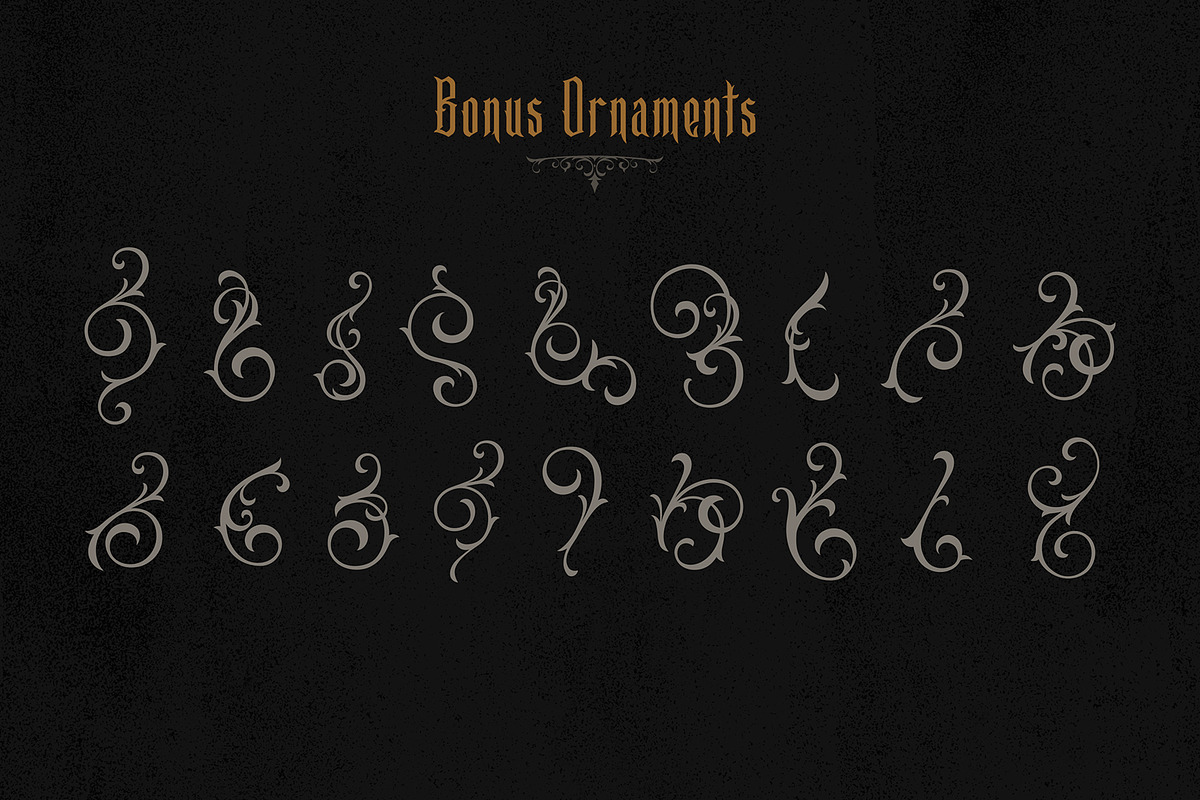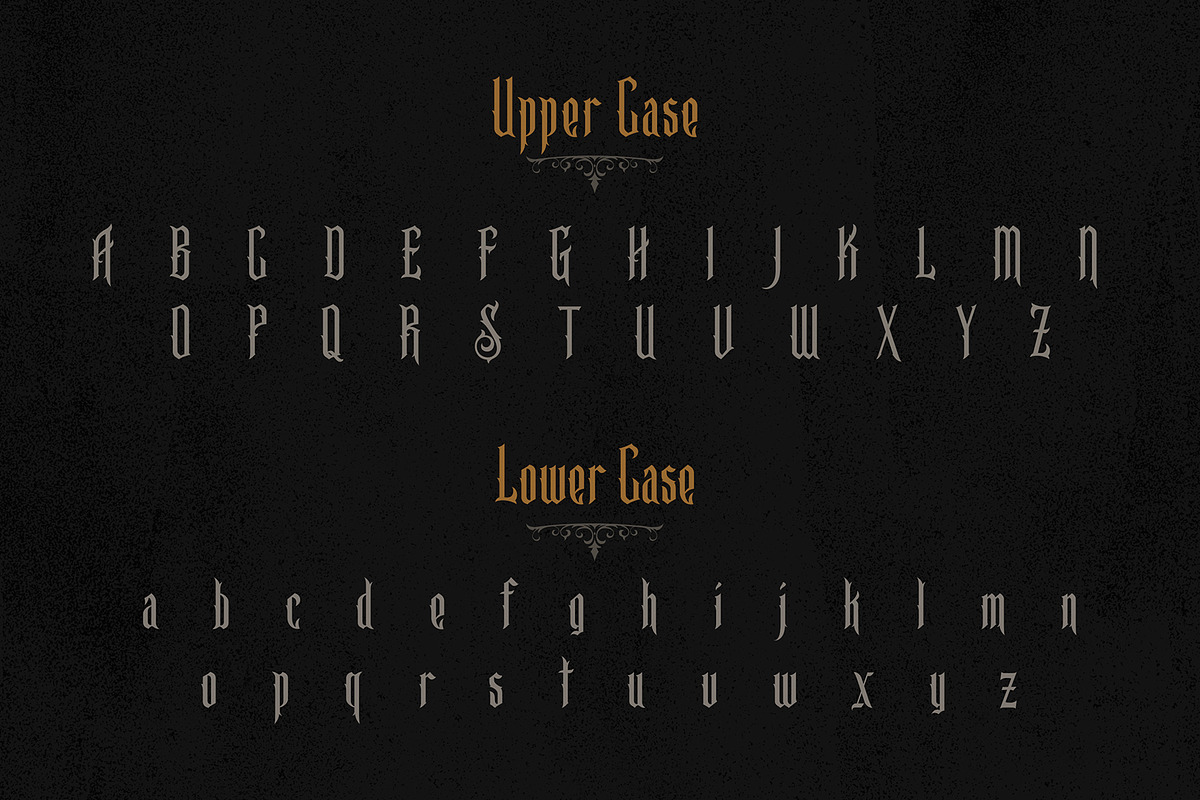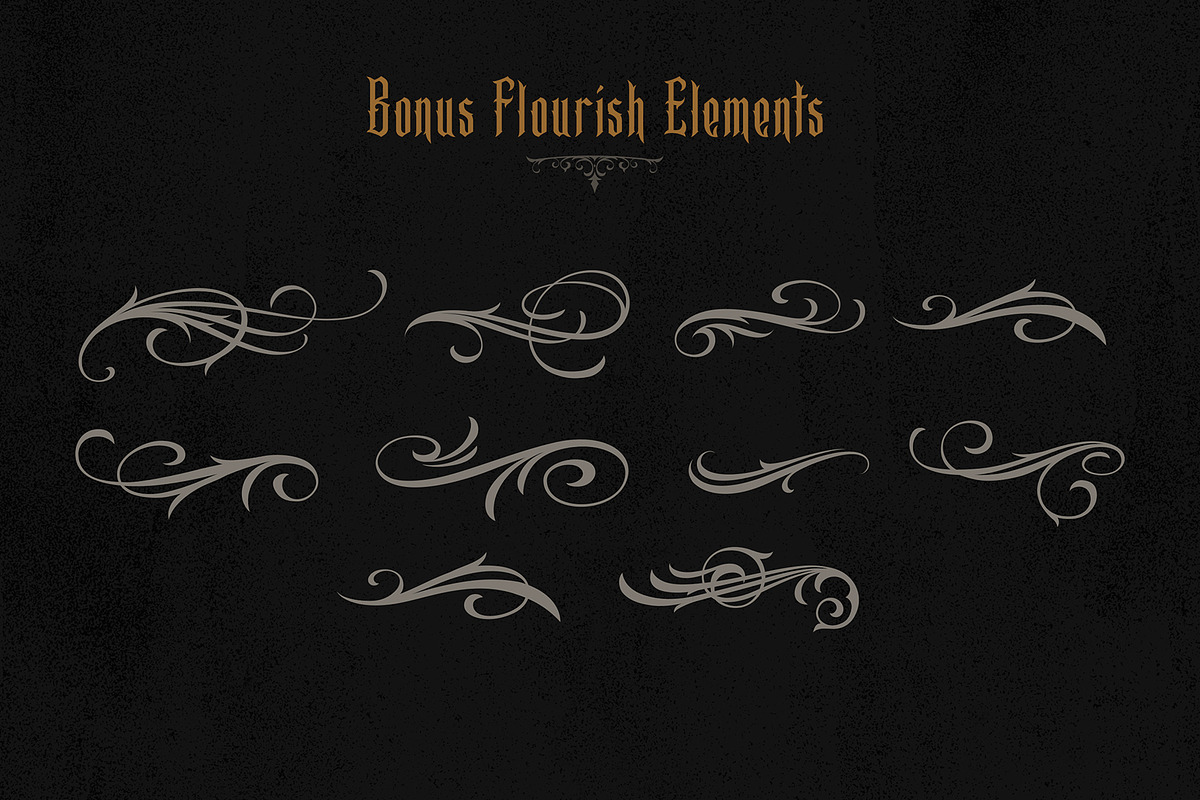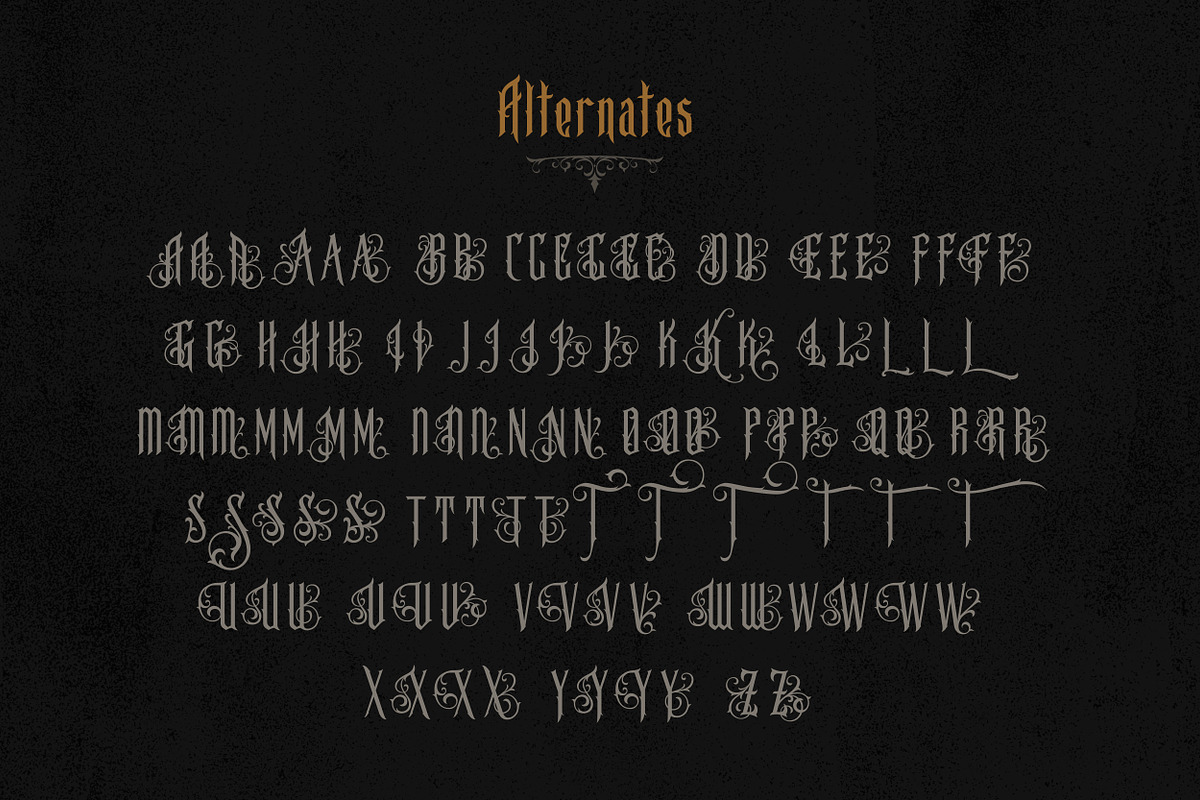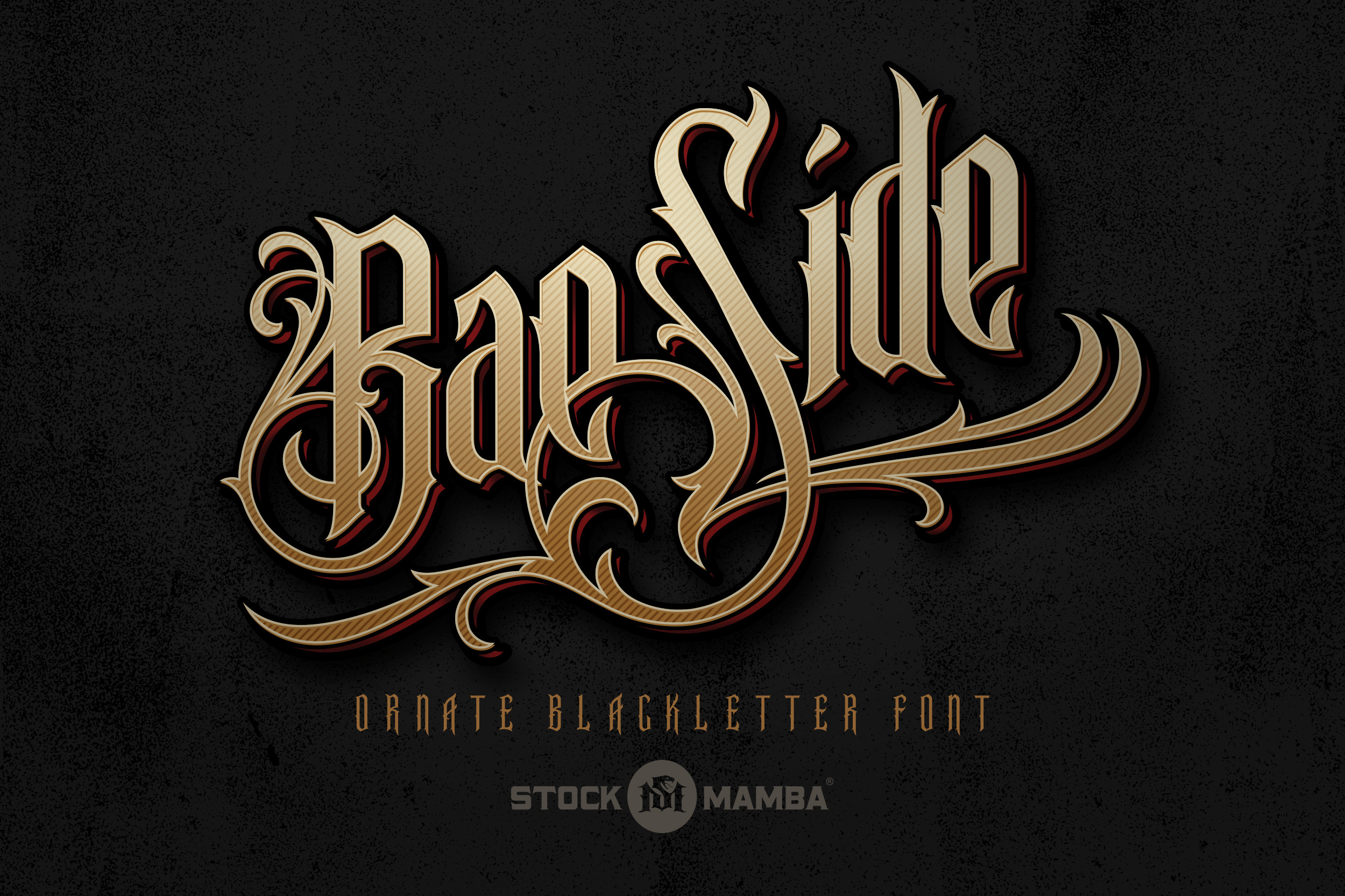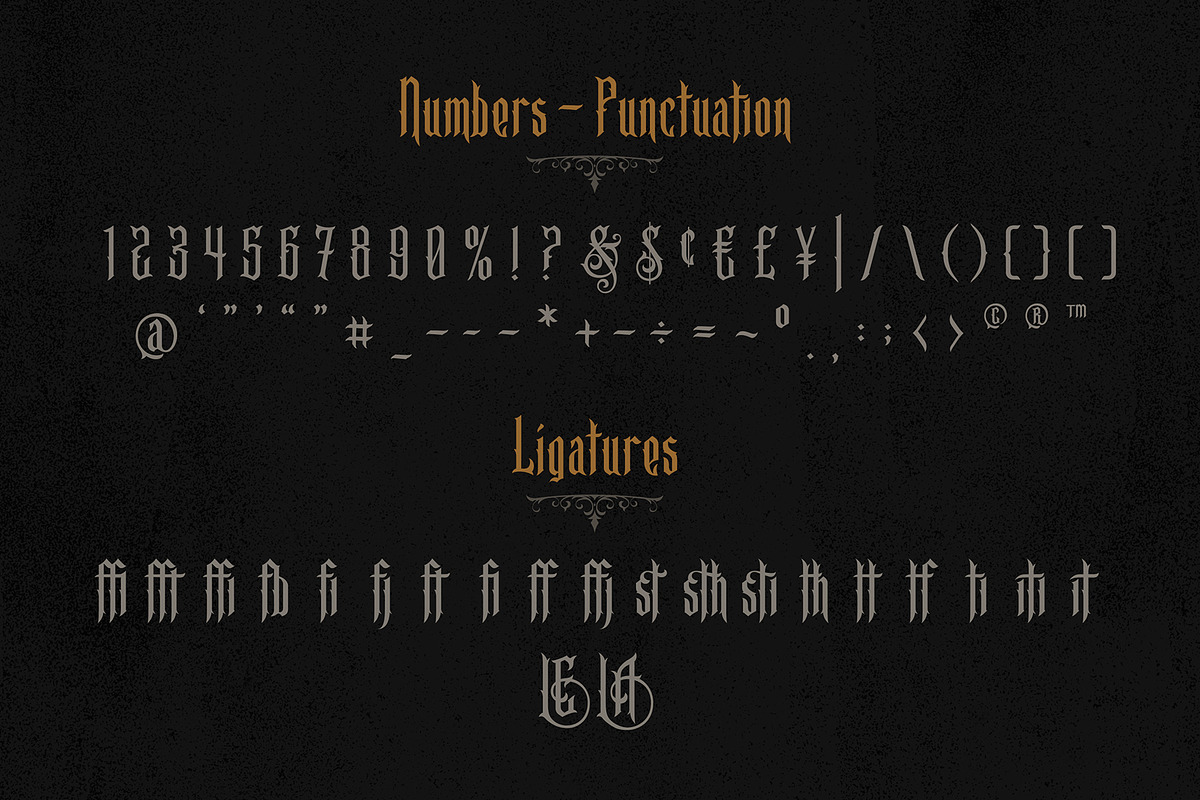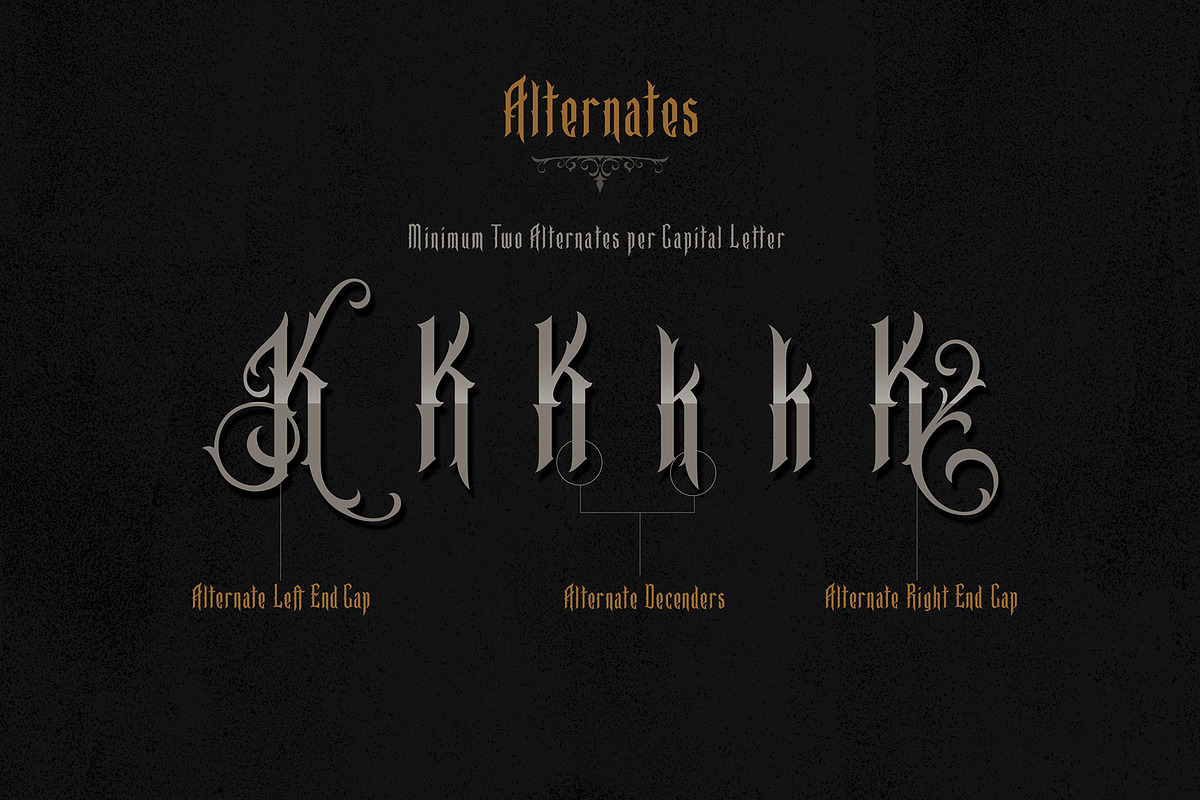
BaeSide Ornate Blackletter Font
BaeSide is a modern Blackletter display font with alternates that have an ornate flair. BaeSide was designed as a display font for tattoo shops, drink labels, clothing labels, etc. But hey...surprise me :) Font comes complete with loads of alternates, ligatures, bonus flourish elements, and ornaments pulled from some of the capital letter forms. This font is not multilingual, but does include all of the basic latin numbers and punctuation characters.
The bonus swashes and ornaments have been added as alternate fonts. Capital letters will display them. Lower case letters will display a mirror image of the capital letter versions.